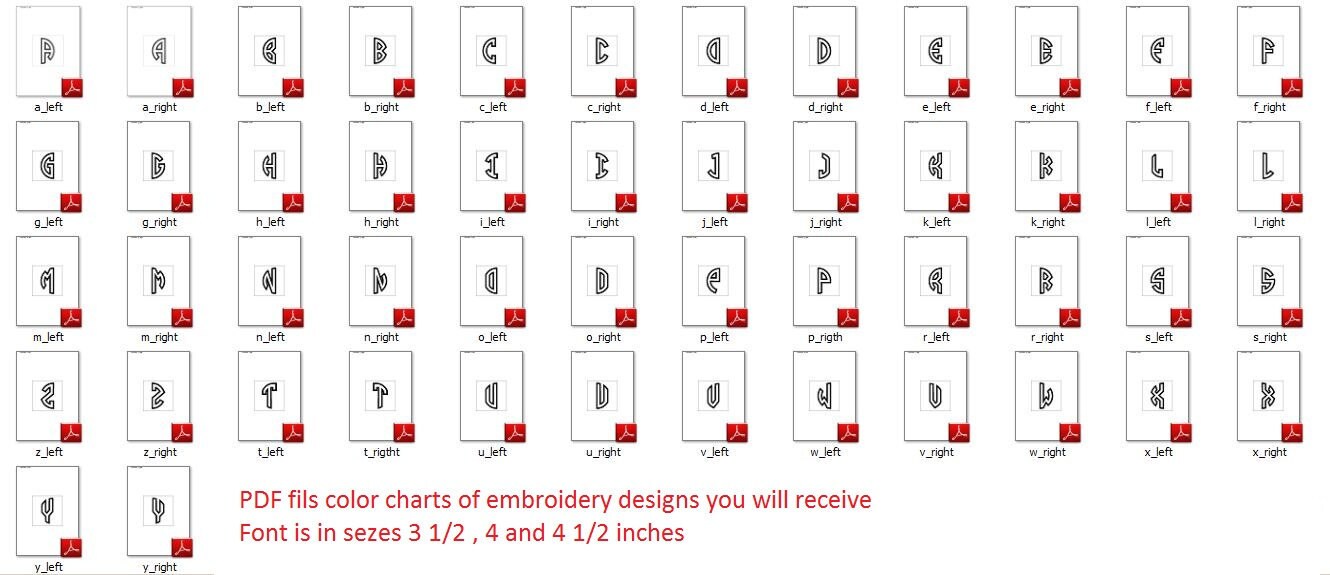
Or click to open the linkA two-letter circle monogram in applique, for pillows, towels, tote bags and wedding gifts.
Every letter comes as a left half and a right half, so two initials join into one circle. The letters come in 3.5, 4, 4.5 and 5.5 inches, and the set has 25 letters of the alphabet.